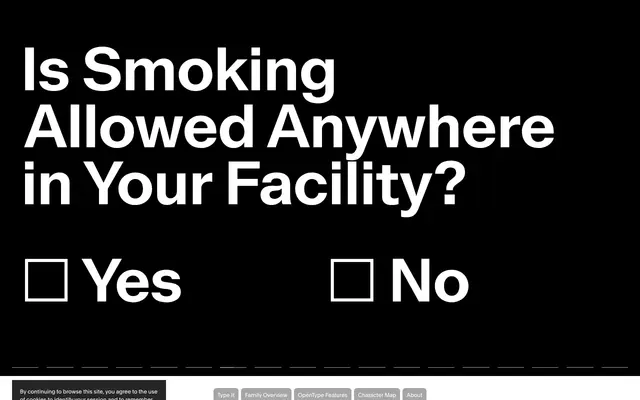
Facility
Optimo · Malte Bentzen
Facility specimen from Optimo
Malte Bentzen's modernist sans with a 1960s flare and slightly flared terminals, in nine weights with italics and a variable axis.
A modernist sans by Zürich-based Danish designer Malte Bentzen that flirts with 1960s extravagance while staying grounded in mid-century rationality. Distinctive curves on letters such as a and s, paired with slightly flared terminals, evoke the vibrant shapes of Verner Panton, while the structural logic stays efficient and fluent. Nine weights with italics, plus an Extra Black, an Upright Variable and a full Variable, make it usable from text to display without losing the warmth that gives Facility its personality.
Optimo describes Facility as flirting with the extravagance of the 1960s while staying grounded in Modernism, with distinctive curves and slightly flared terminals that evoke Verner Panton sat over a rational mid-century structure.